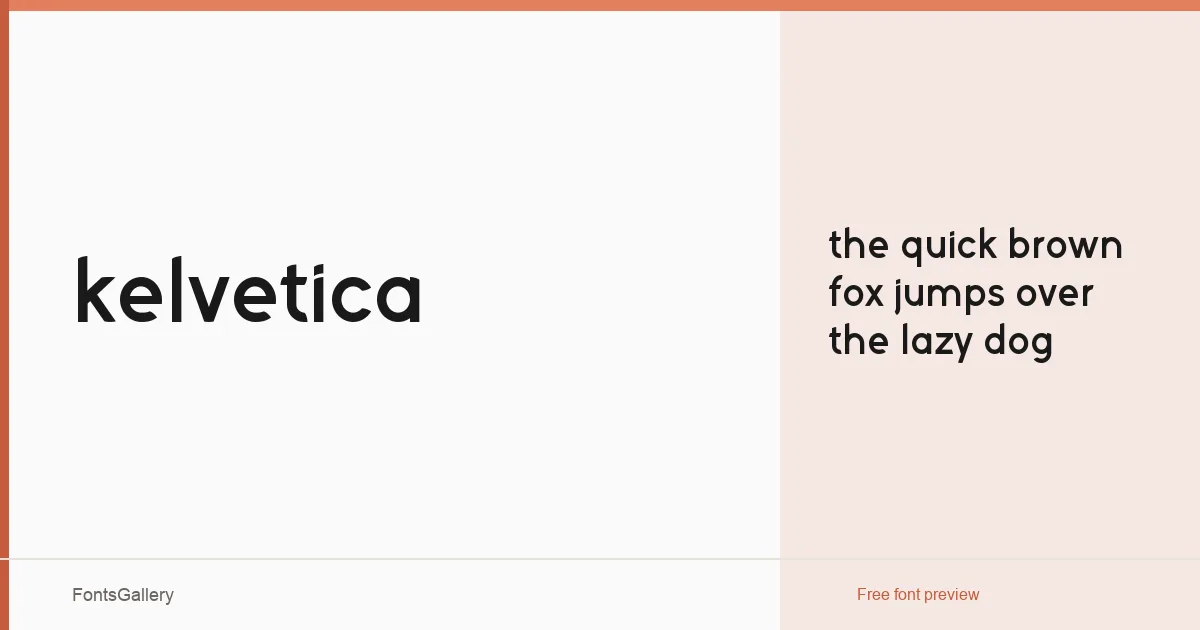
About Kelvetica Font
Kelvetica is a sans serif typeface crafted by designer and foundry Erion Dyrmishi. It embodies a minimal, modern, and professional character that makes it immediately versatile across a wide range of design contexts. Clean and purposeful, Kelvetica brings a refined sensibility to any project it touches.
Kelvetica's letterforms reflect a disciplined, minimalist approach rooted in the traditions of modern sans serif typography. Each character is shaped with professional precision, favoring clean strokes, balanced proportions, and uncluttered forms that communicate clarity and confidence. The result is a typeface that feels both contemporary and timeless in its presentation.
Kelvetica excels in branding, magazine layouts, website headers, business cards, and professional presentations where a clean, modern aesthetic is essential. Its minimal personality ensures strong legibility and visual impact whether displayed at large headline sizes or compact card formats. For a well-rounded typographic palette, Kelvetica pairs beautifully with Aresink and Ballmain.